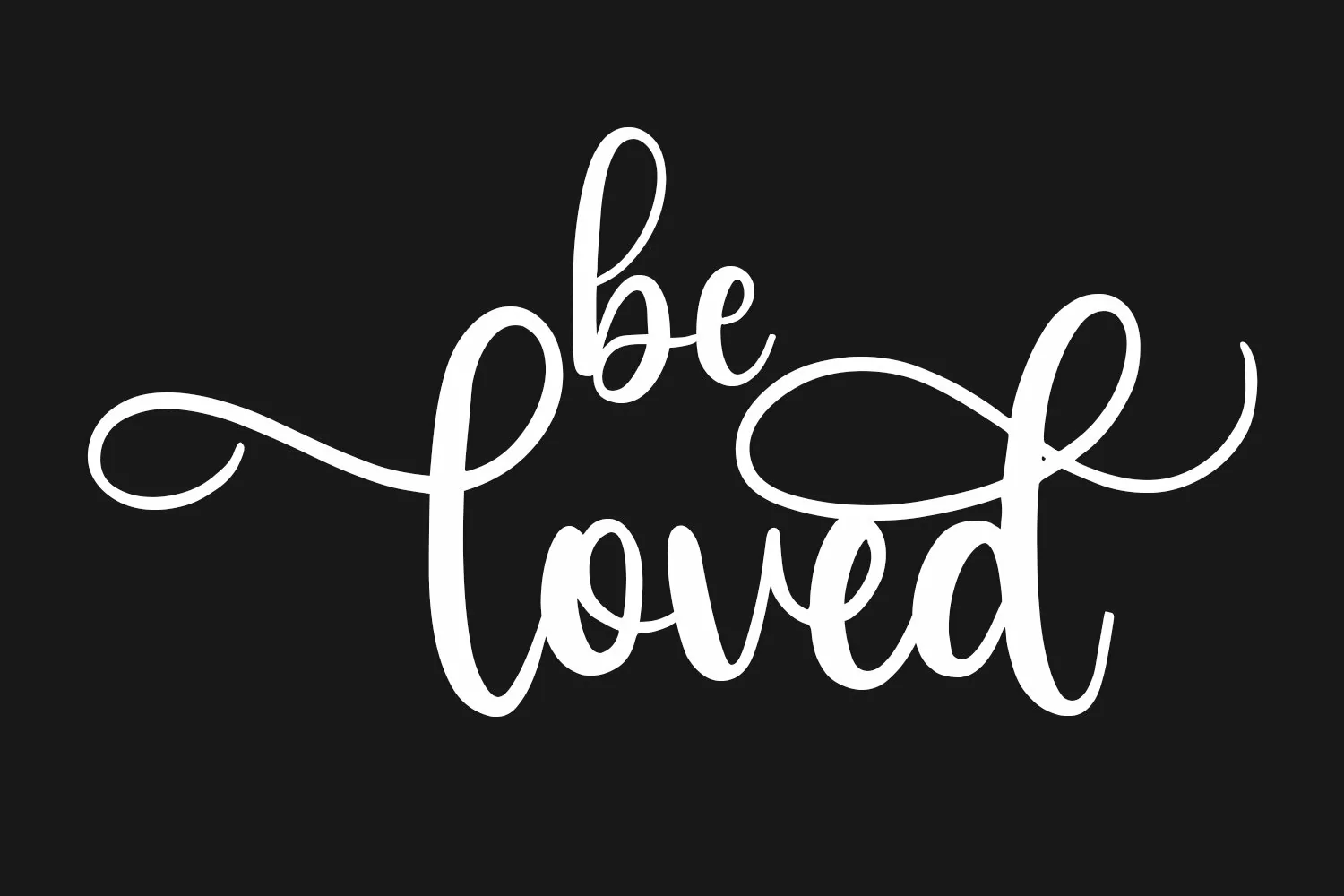
Stories Amsterdam is a fancy handwritten script font. With regular contrast stroke, fun character with a bit of ligatures and stylistic alternates. To give you an extra creative work. Stories Amsterdam font support multilingual more than 100+ language. This font is good for logo design, Social media, Movie Titles, Books Titles, a short text even a long text letter and good for your secondary text font with sans or serif. Make a stunning work with Stories Amsterdam font.
Stories Amsterdam